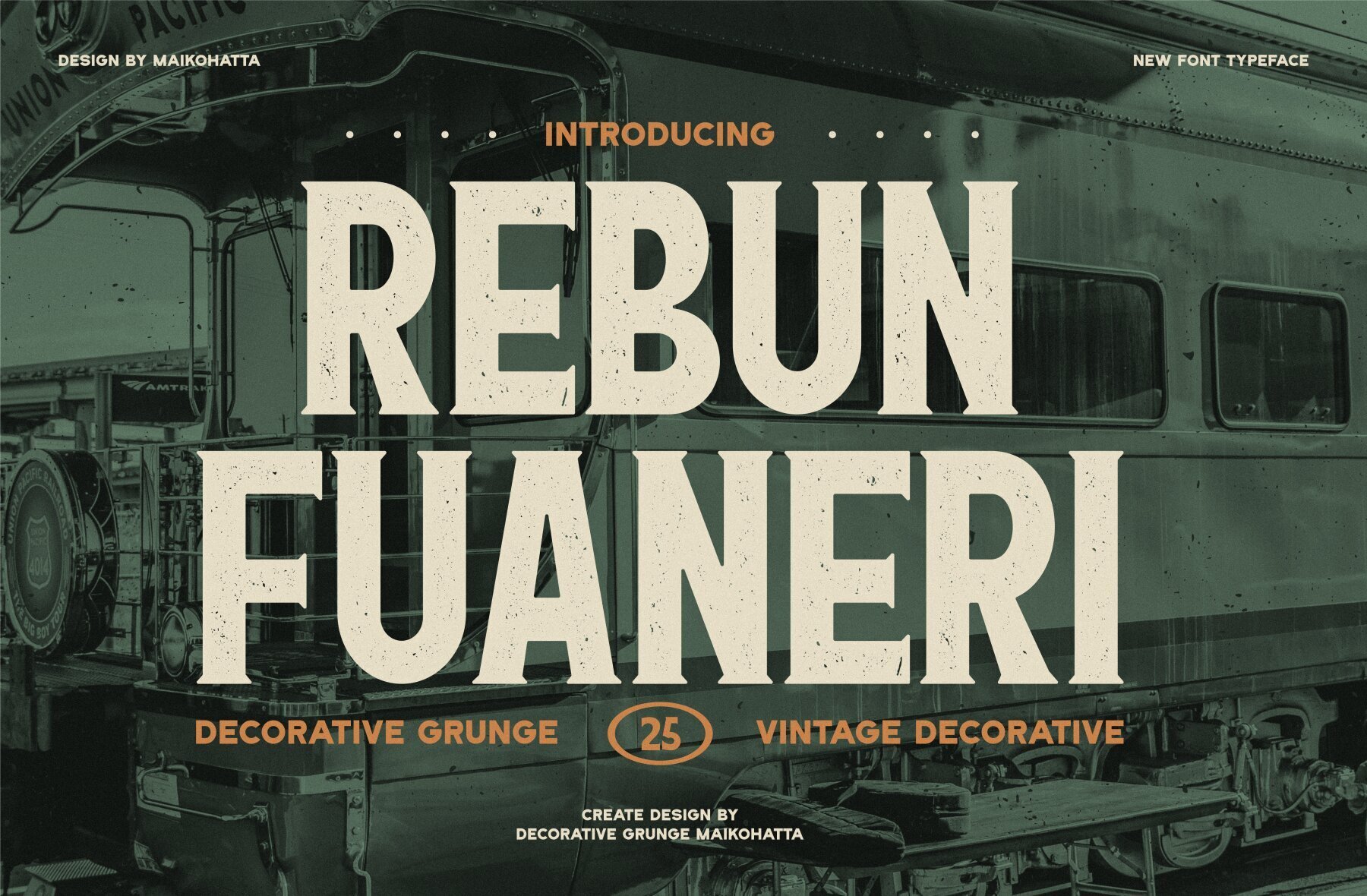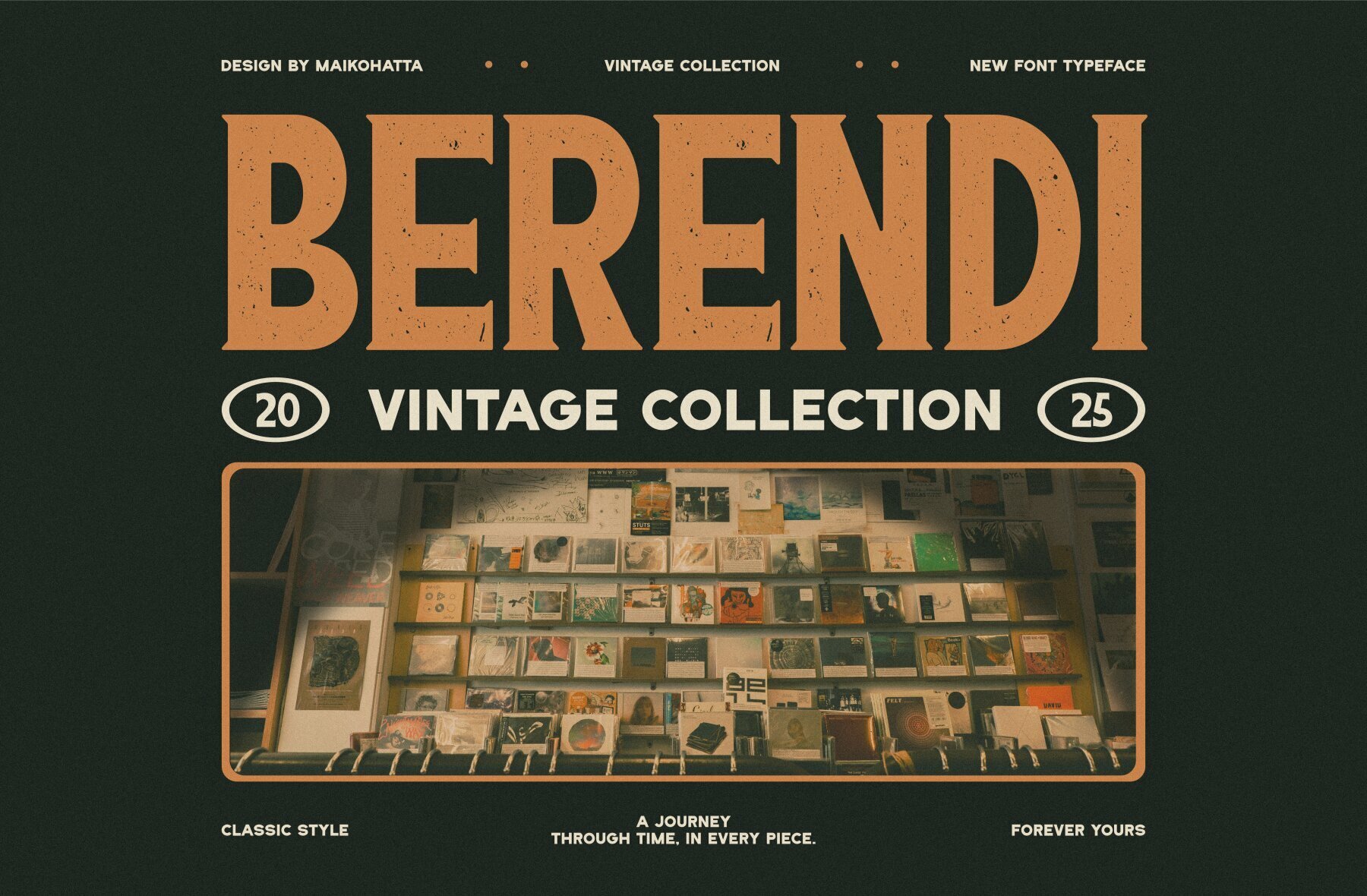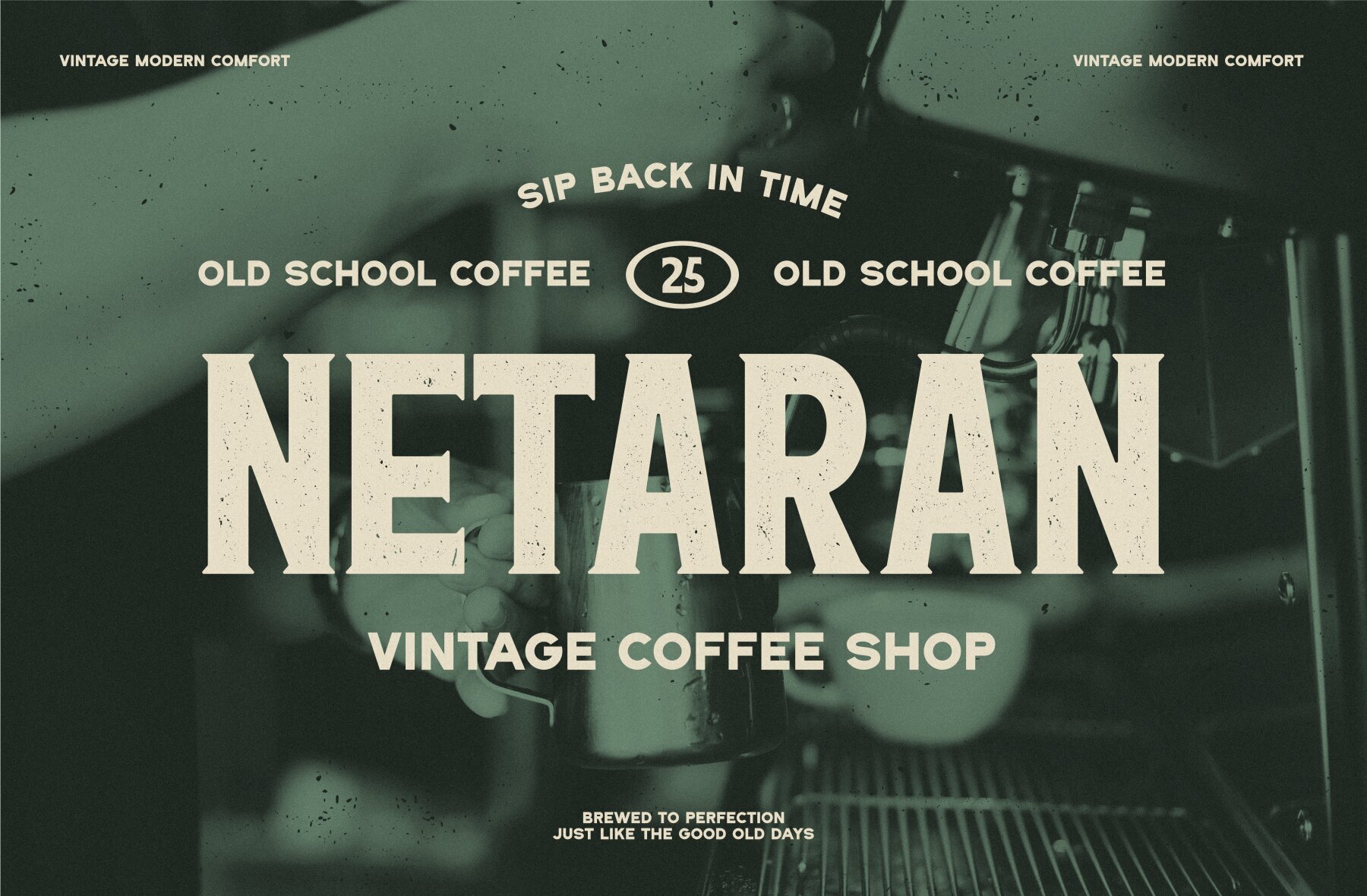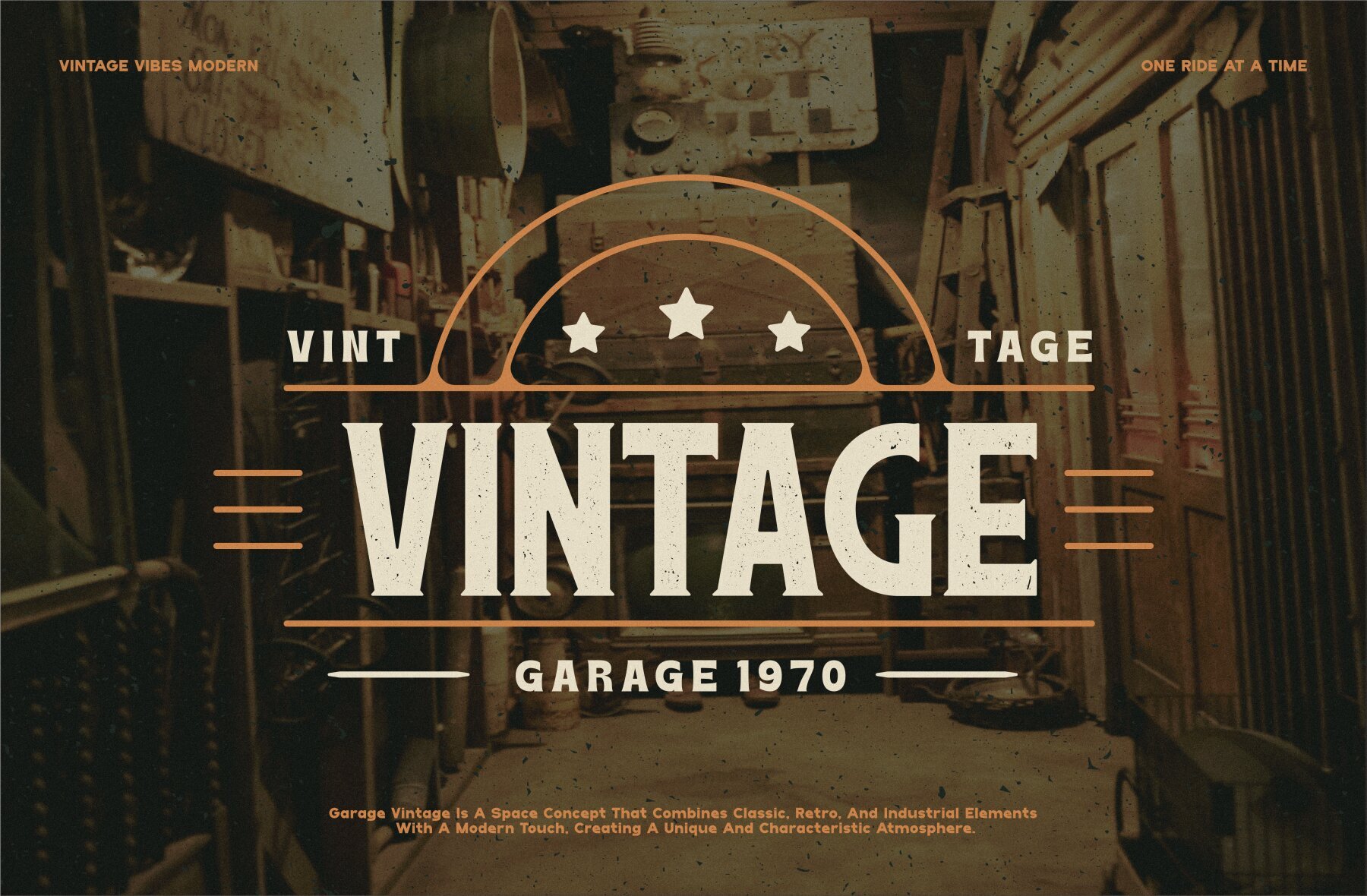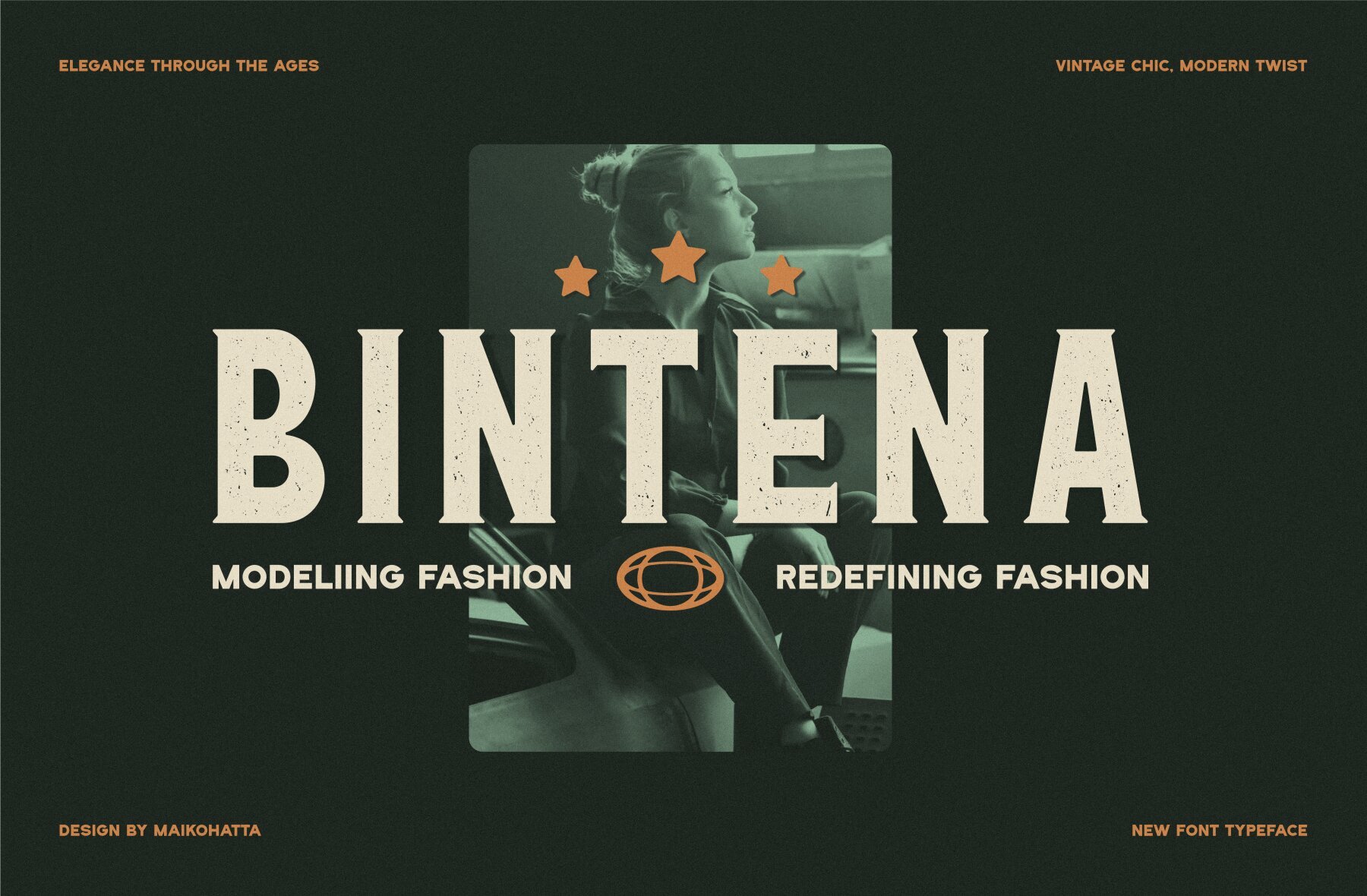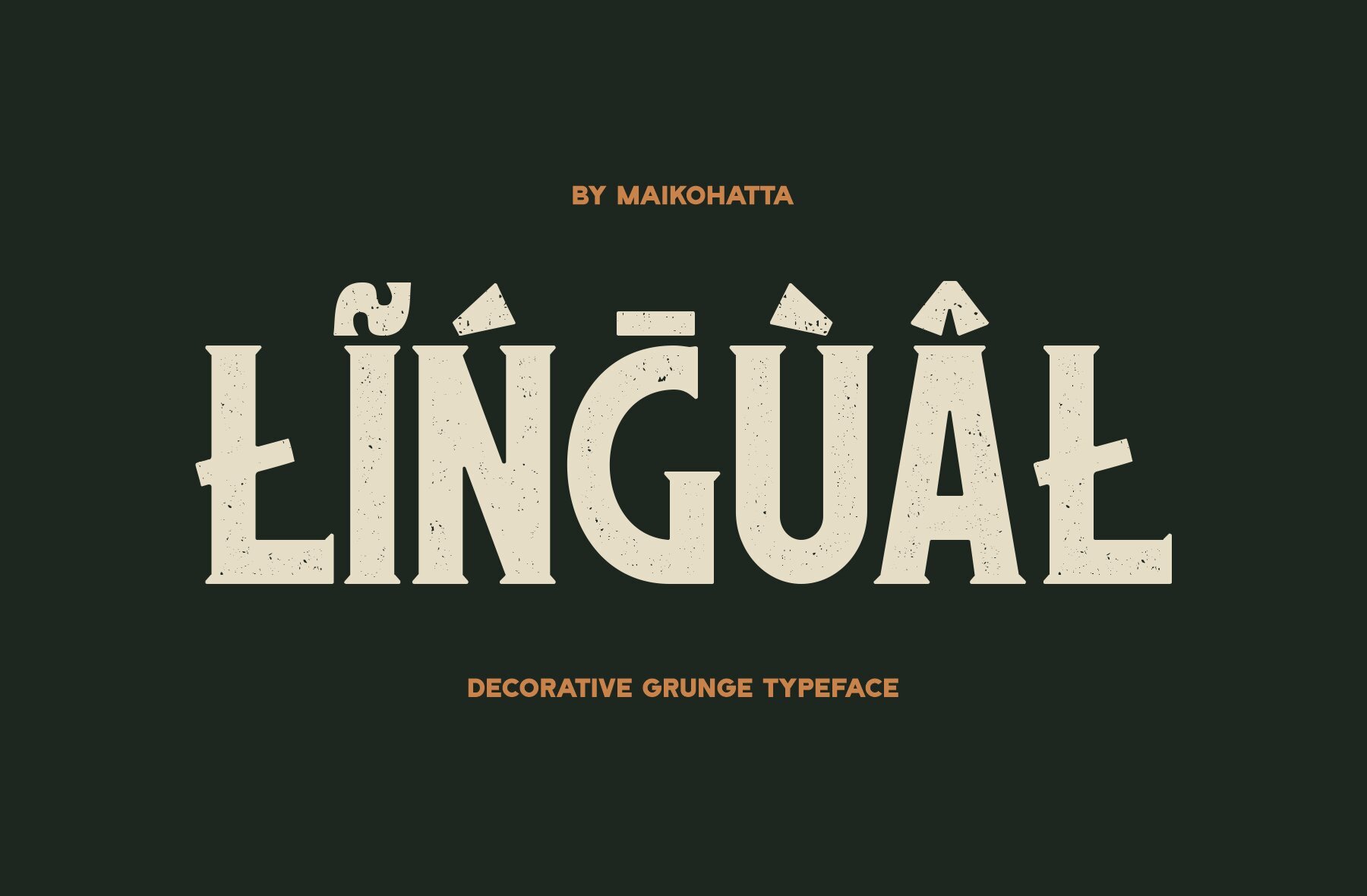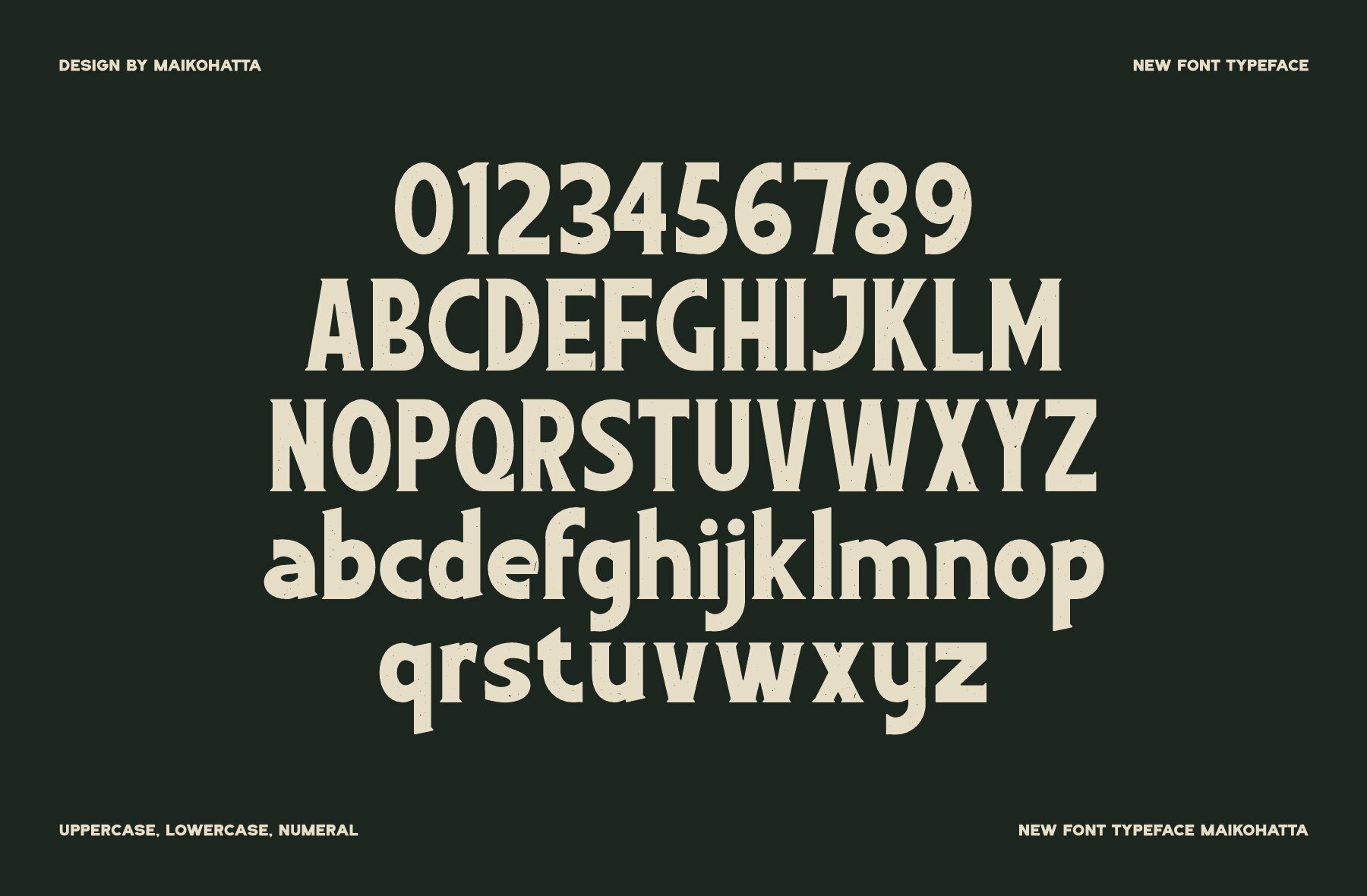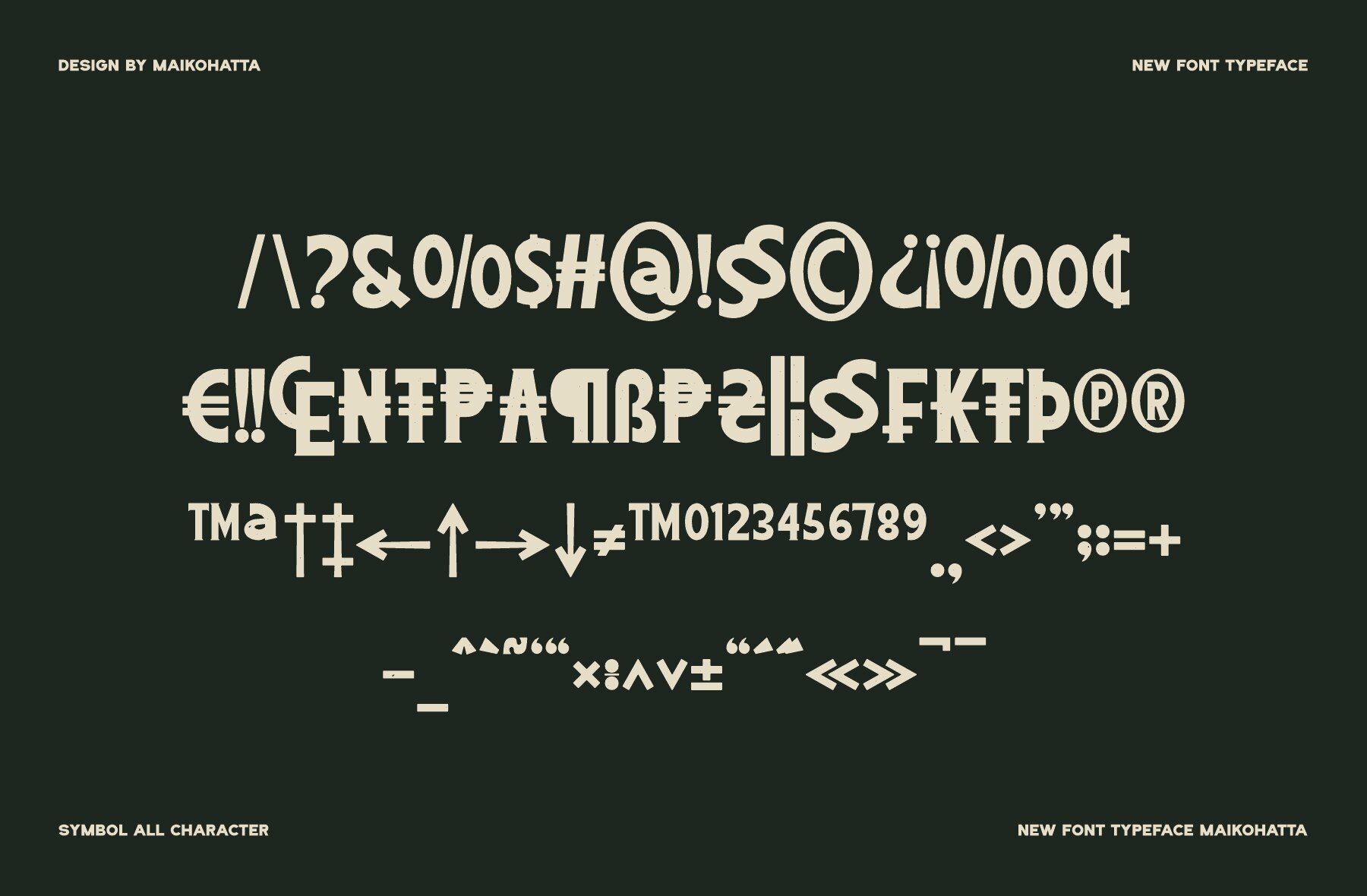
Rebun Fuaneri Font
Rebun Fuaneri brings a robust, retro flair that captures attention in any branding initiative. Its striking presence makes it an ideal choice for logos, template designs, and esports visual material. This decorative display font stands out brilliantly in various creative contexts, offering a dramatic touch to both digital and print media projects.Rebun Fuaneri: Bold Vintage Display Font